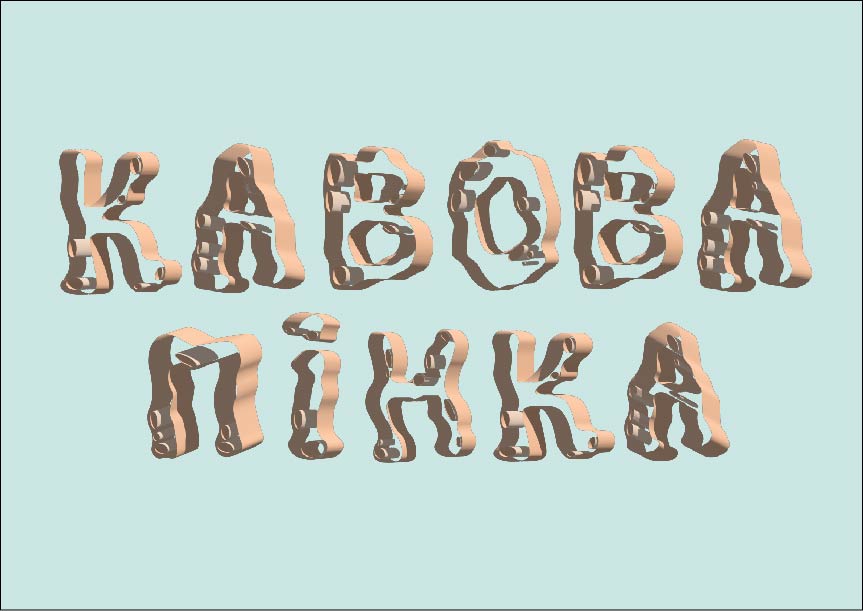
This font in its initial style resembles a coffee pin with the appearance above. It has an irregular wavelength contour and the bubble effect to transmit texture and atmosphere.
Letters also have an emptiness inside, leaving only the contours without filling. This creates a special graphic aesthetics and adds font ease.
The font has a three-dimensional effect, which makes it visible with thin and long contours. To emphasize this effect, a perspective was used that was selected under each letter separately and the shadows that go from one wall of the letter to the other. These effects create a sense of depth.
Letters also have an emptiness inside, leaving only the contours without filling. This creates a special graphic aesthetics and adds font ease.
The font has a three-dimensional effect, which makes it visible with thin and long contours. To emphasize this effect, a perspective was used that was selected under each letter separately and the shadows that go from one wall of the letter to the other. These effects create a sense of depth.